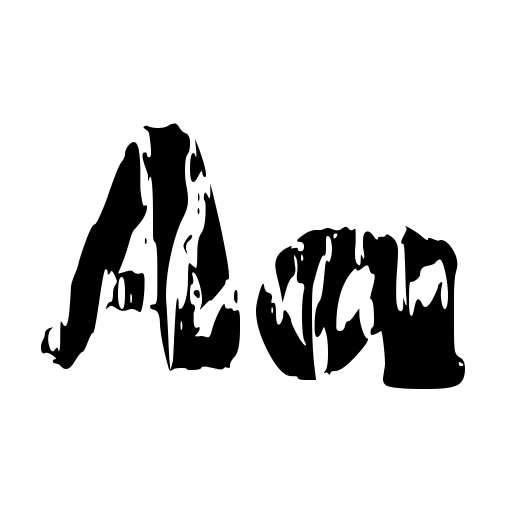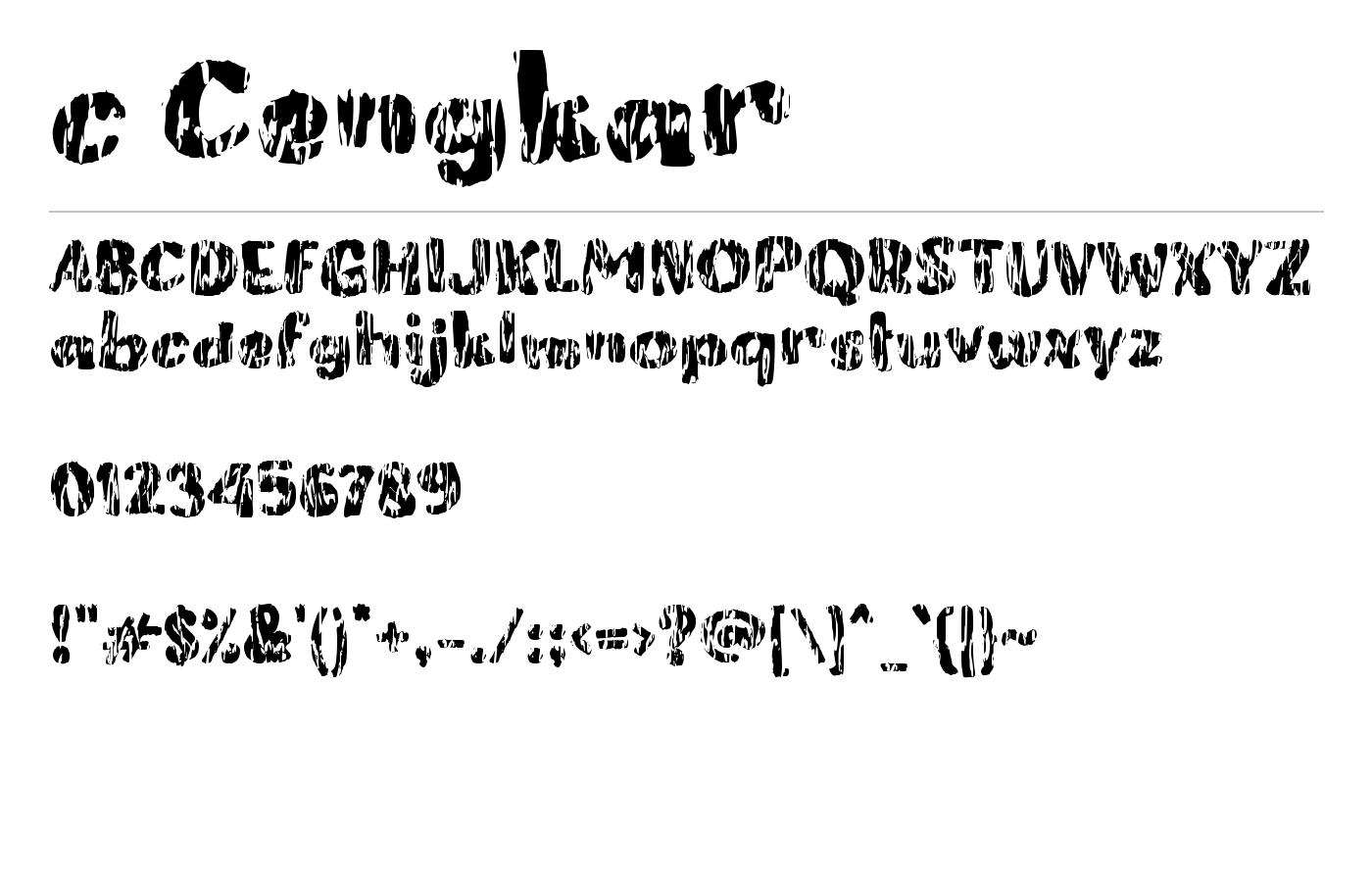
Cengkar is a bold, distressed serif font that features a rough, textured appearance giving it a grunge and vintage feel. Its uneven edges and irregular strokes create a strong, tactile impression ideal for eye-catching headlines and creative designs that need a rugged, handcrafted look. This font works well for posters, branding, and any project aiming to convey an edgy, artistic vibe.
c Cengkar Font